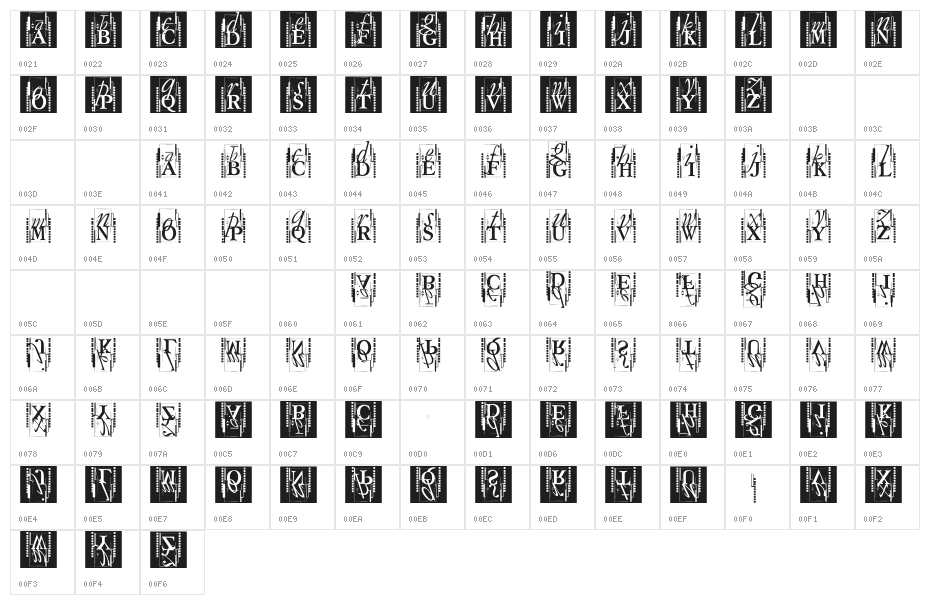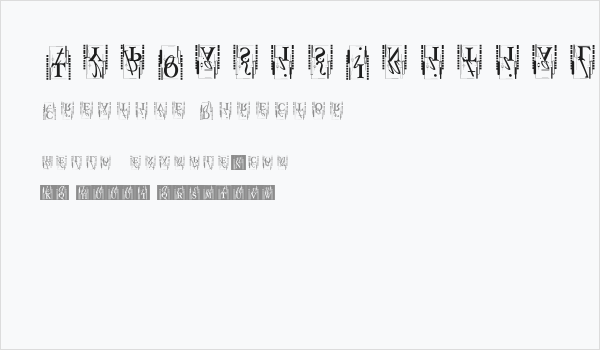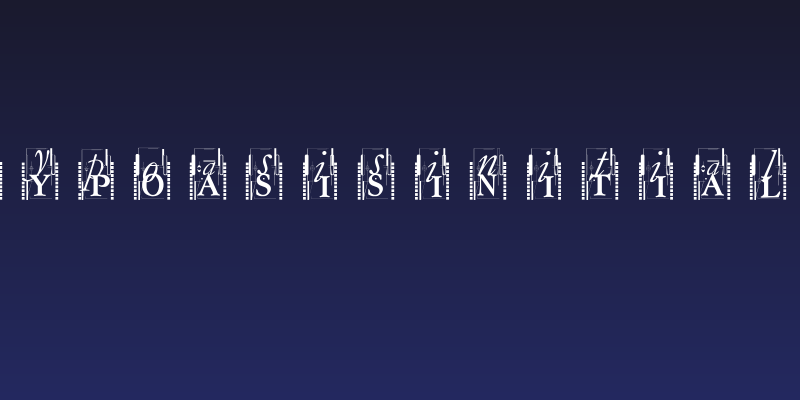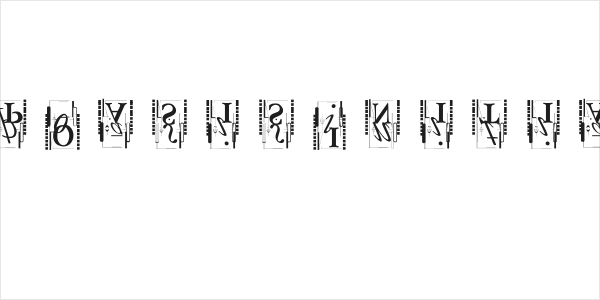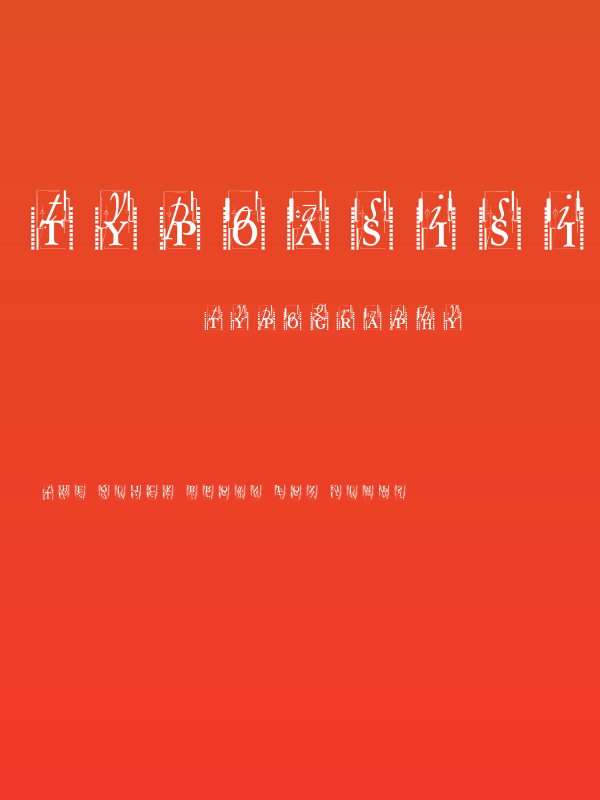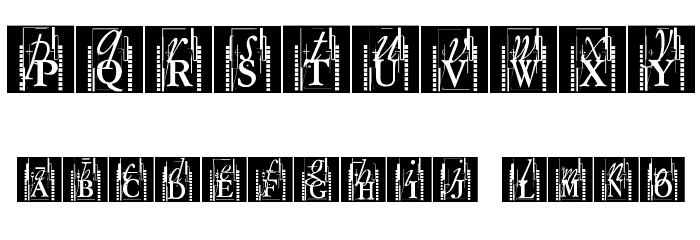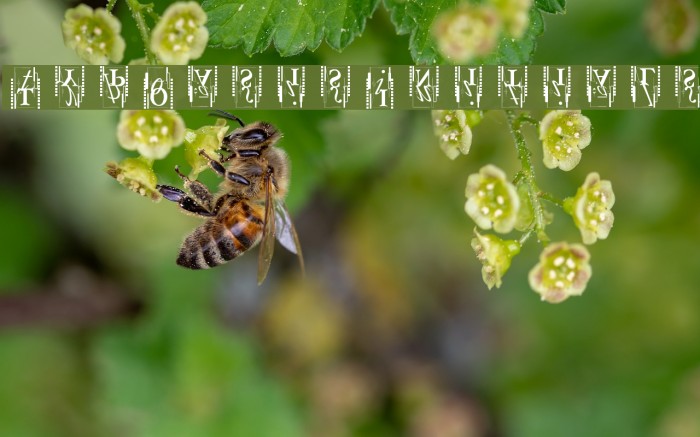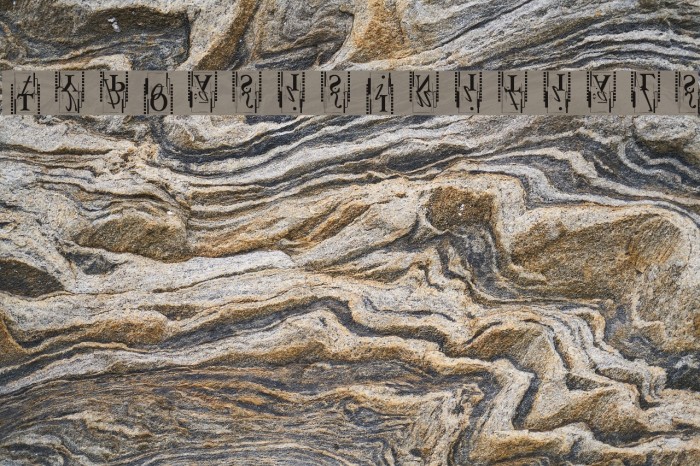
TypOasisInitials Font
TypOasisInitials Description
This font presents a unique blend of modern and decorative styles, characterized by its intricate and artistic design. Each letter is enclosed within a rectangular frame, adding a structured yet creative appearance. The characters are adorned with elaborate flourishes and intersecting lines, giving them a dynamic and layered look. This font's high contrast between thick and thin strokes enhances its visual impact, making it suitable for attention-grabbing designs. The overall style is both sophisticated and avant-garde, appealing to those seeking a distinctive and artistic typeface.
| Proposed Projects | Ideal for artistic projects, branding, posters, and invitations where a unique and decorative touch is desired. |